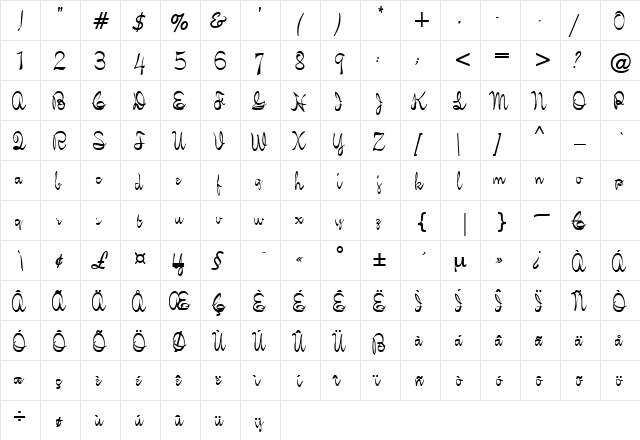
Eleven Regular Font Preview
Eleven Regular
Design Context for Eleven Typeface
Eleven takes a measured approach to typography — its balanced proportions and neutral character make it a reliable workhorse for both digital and print work.